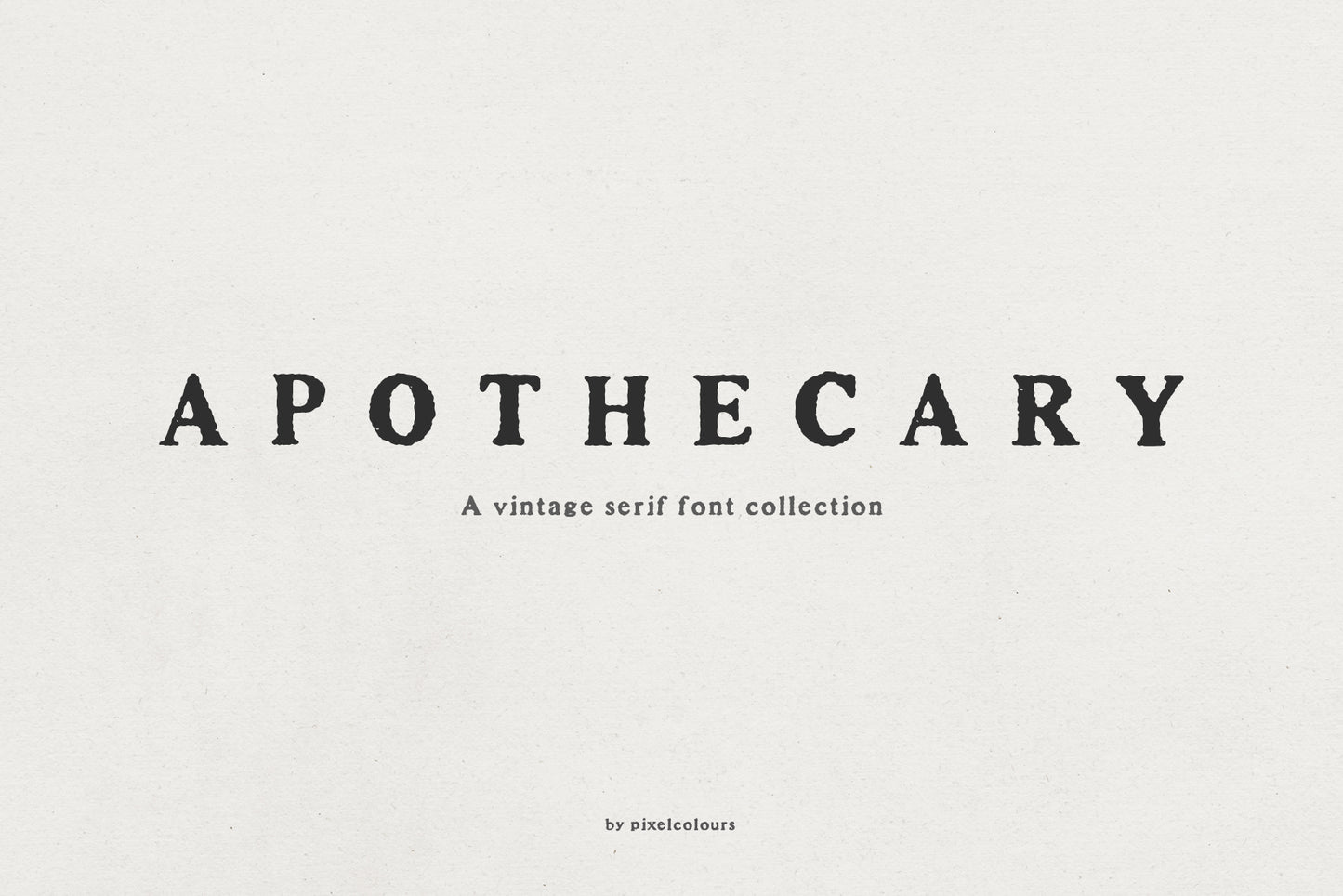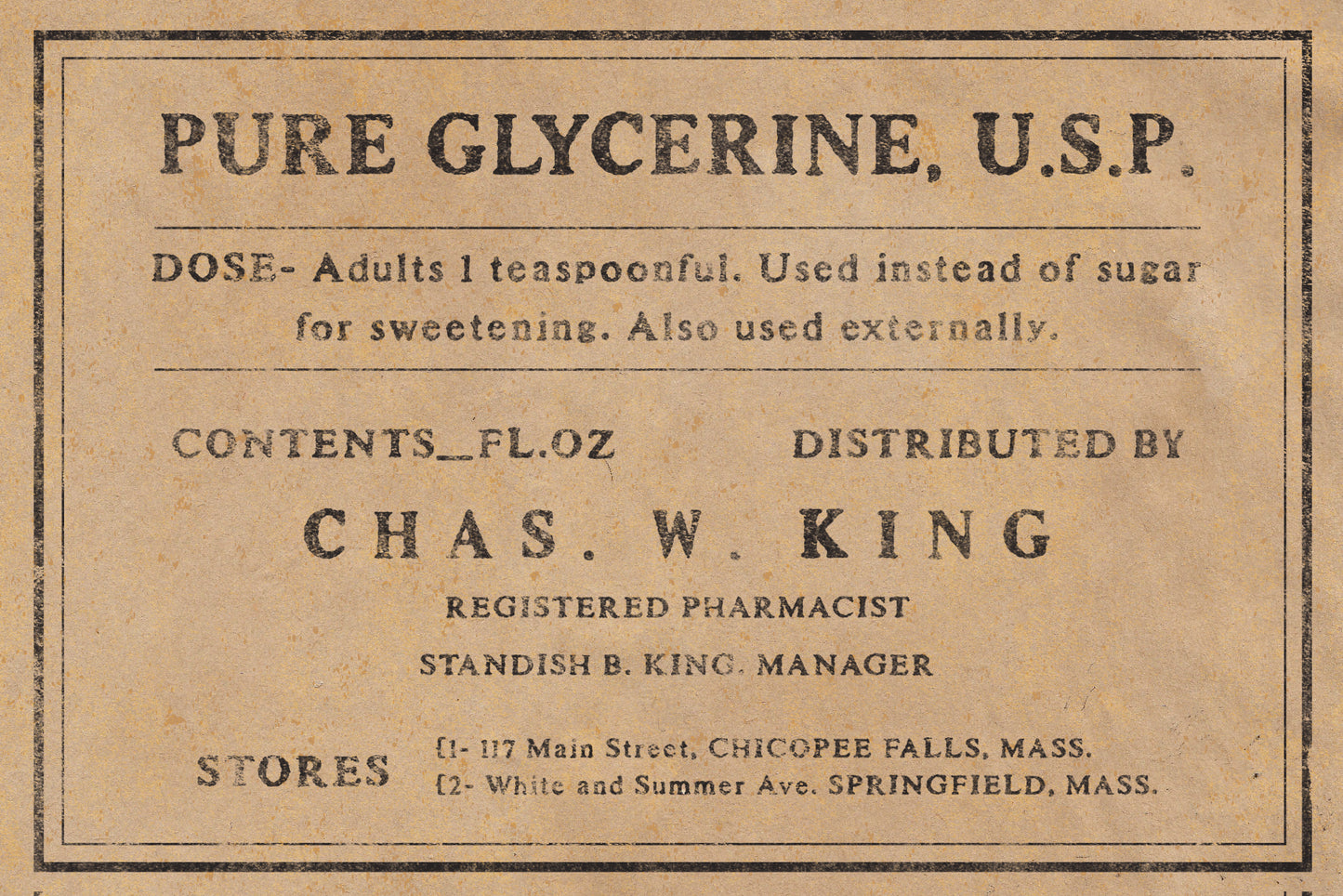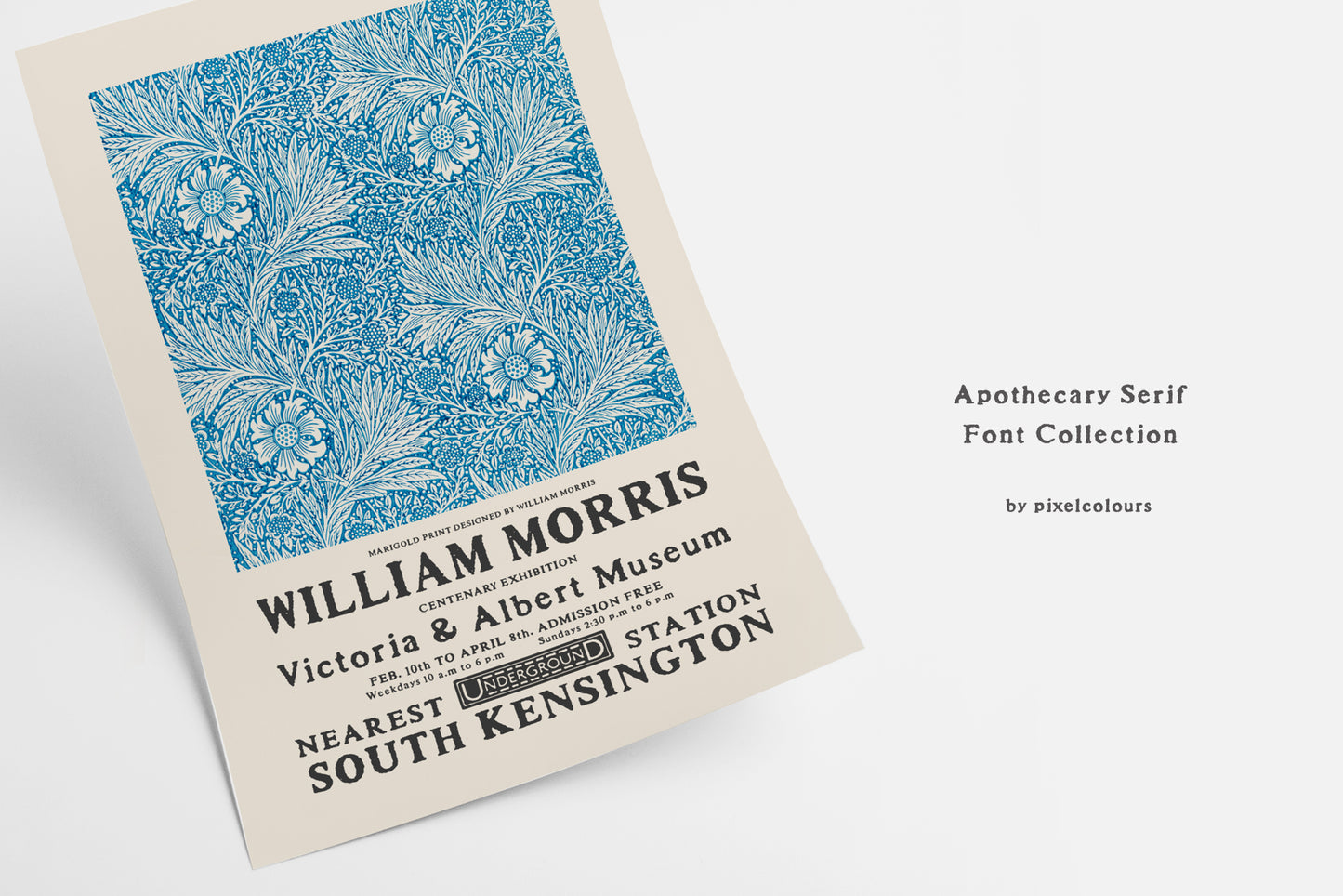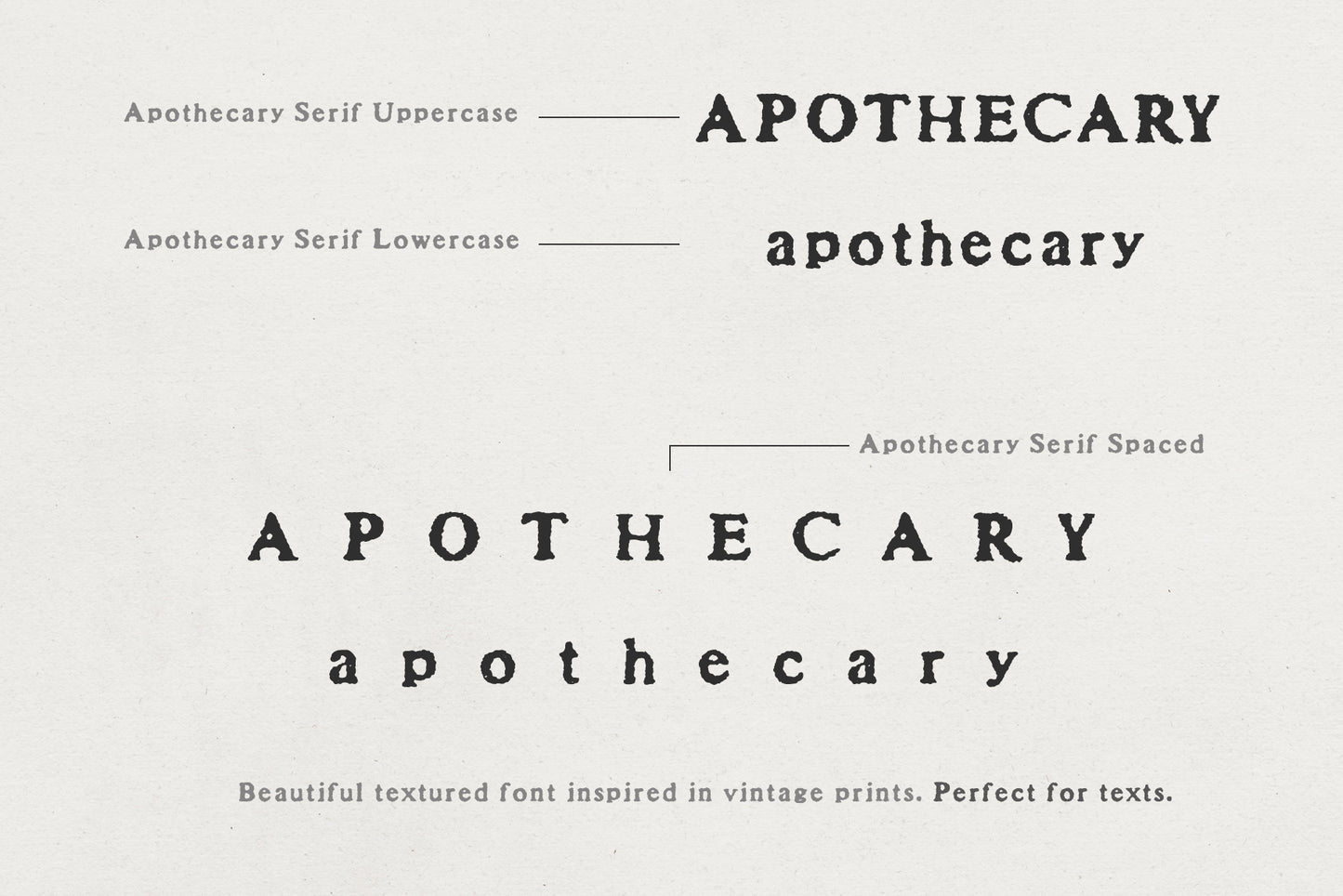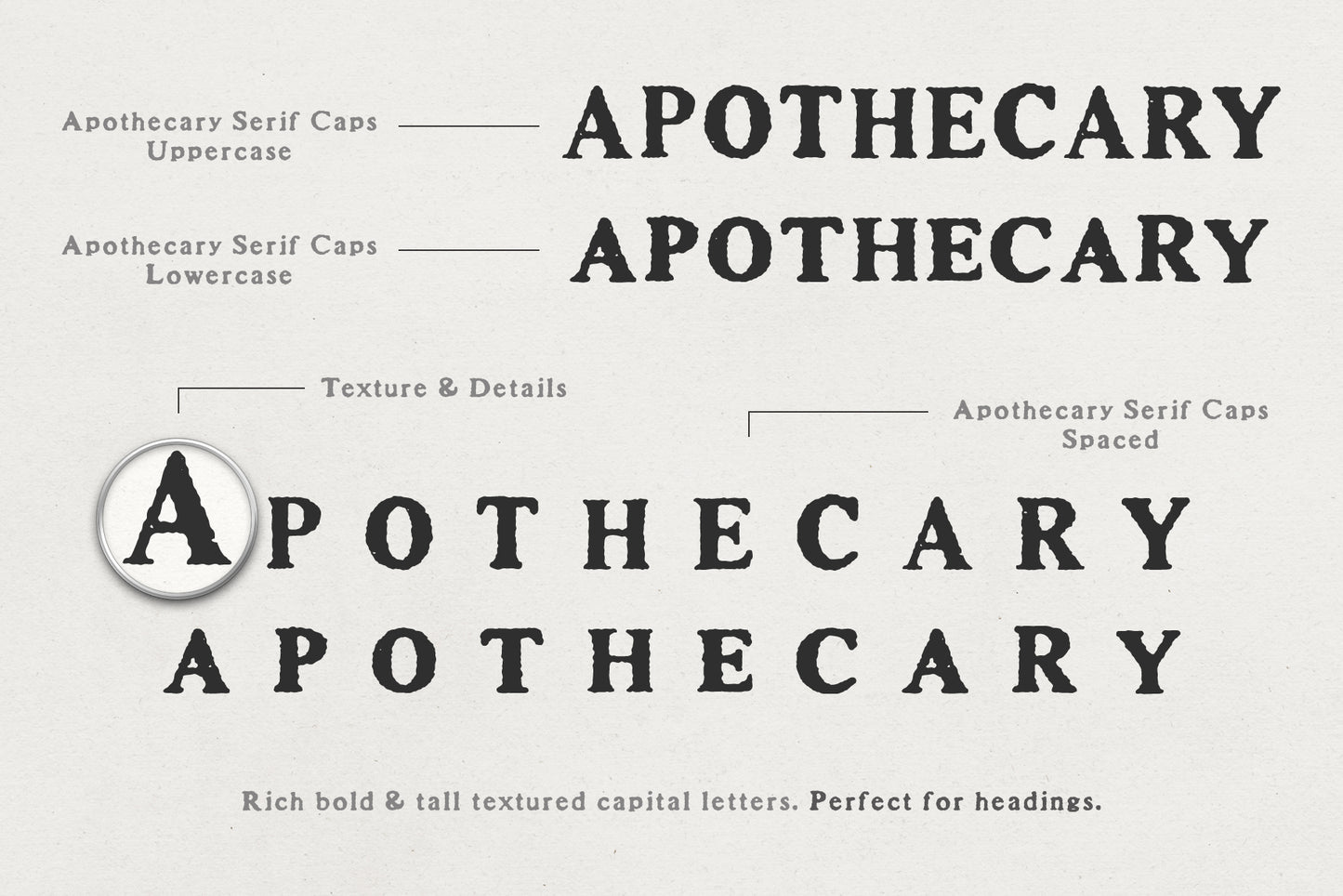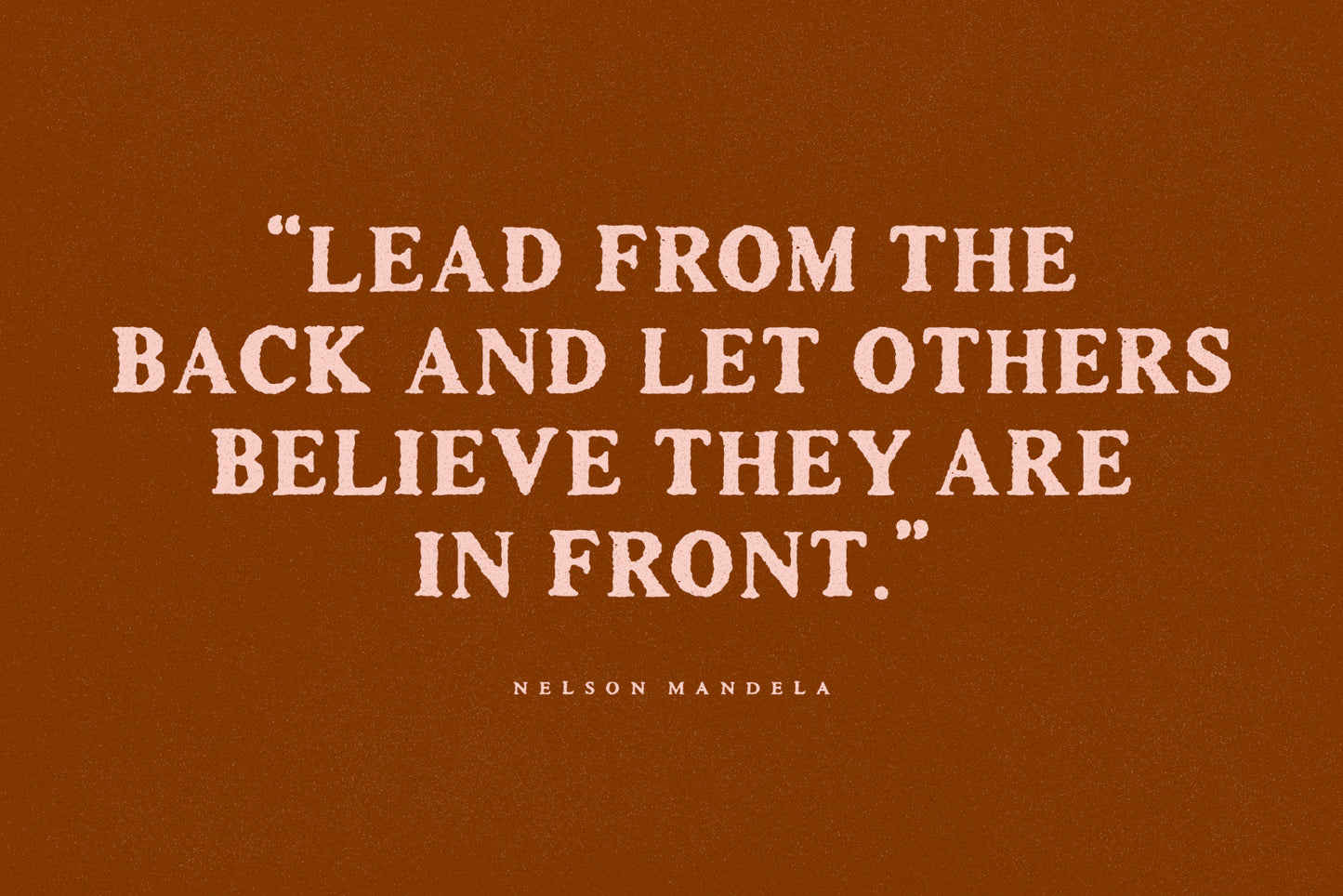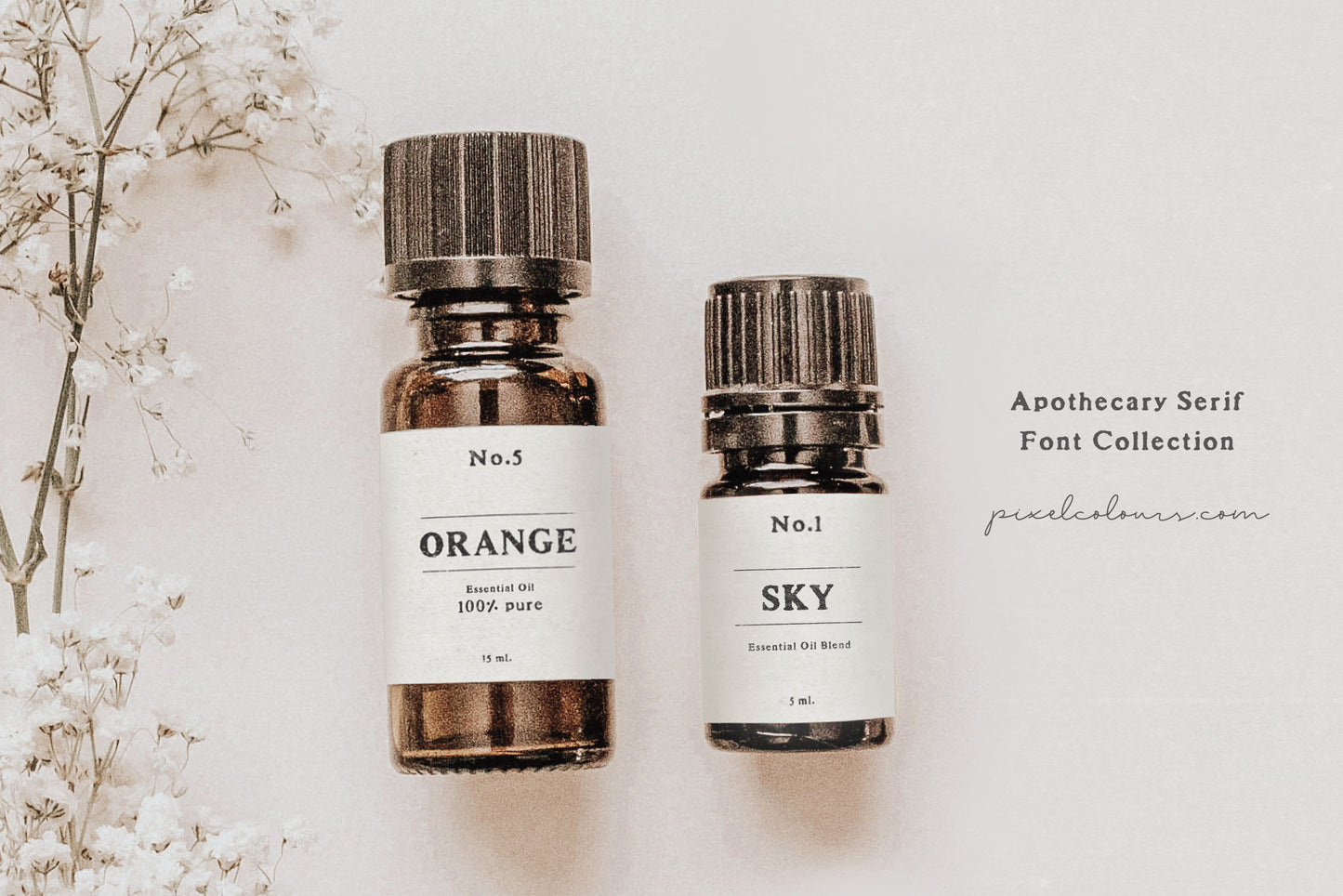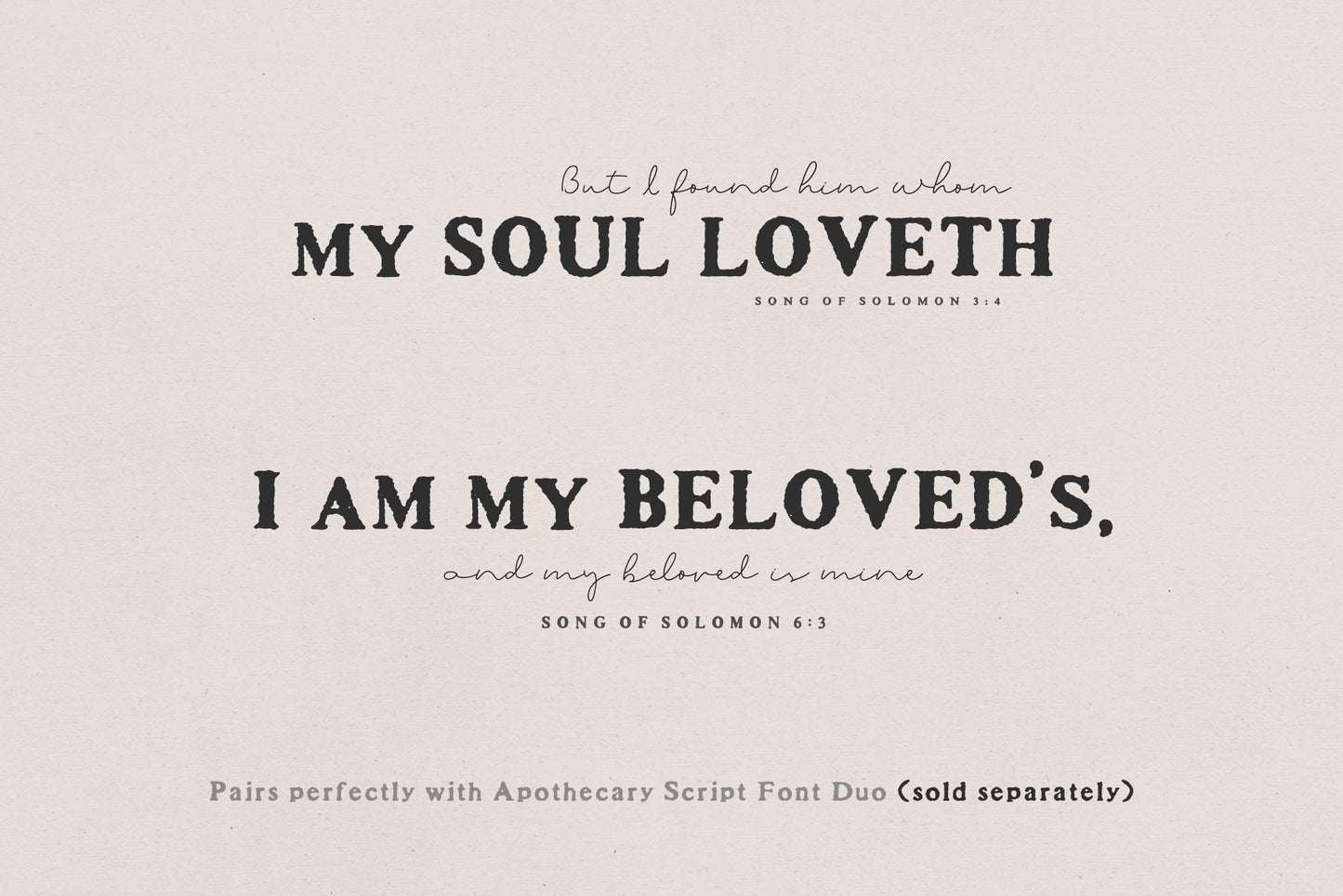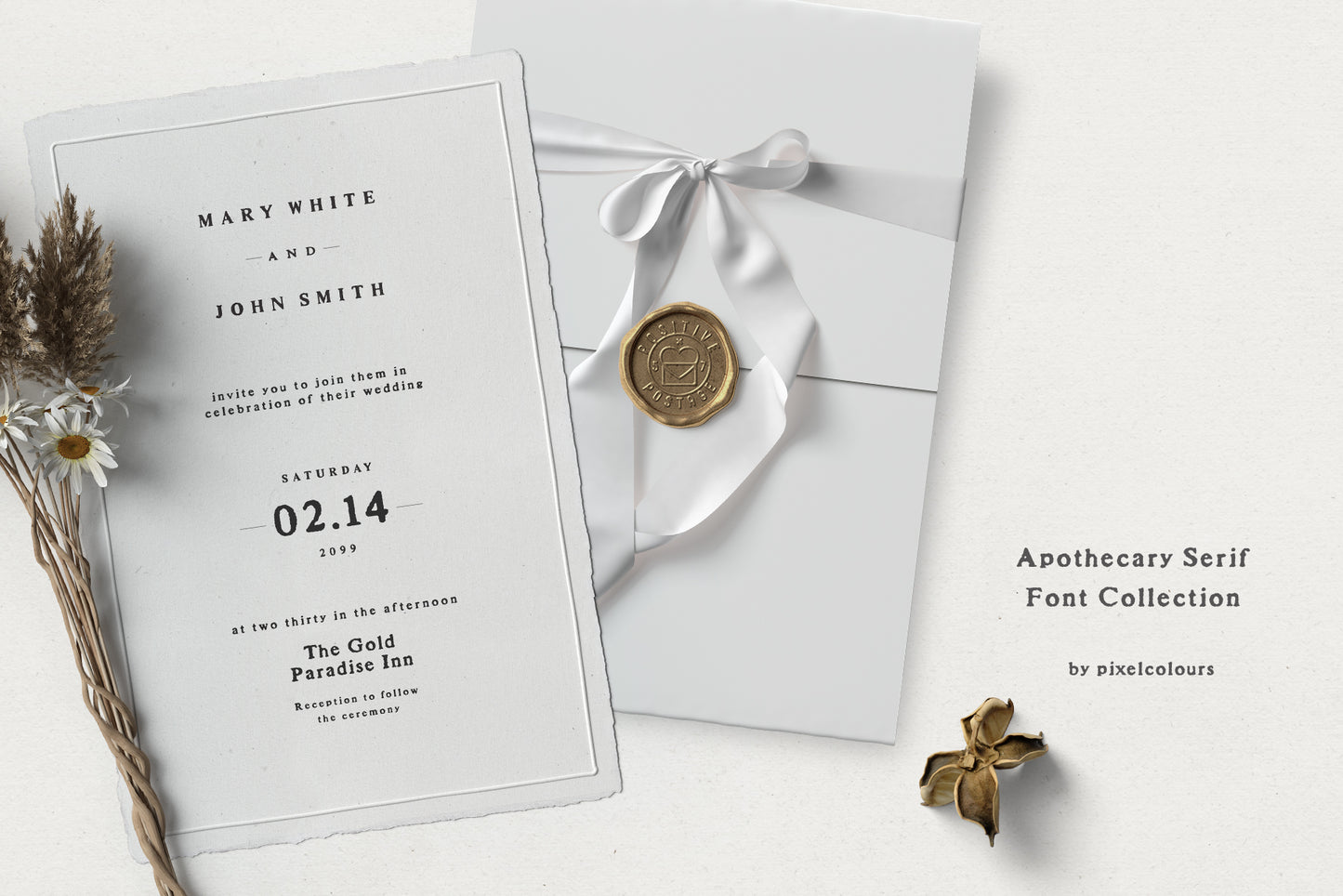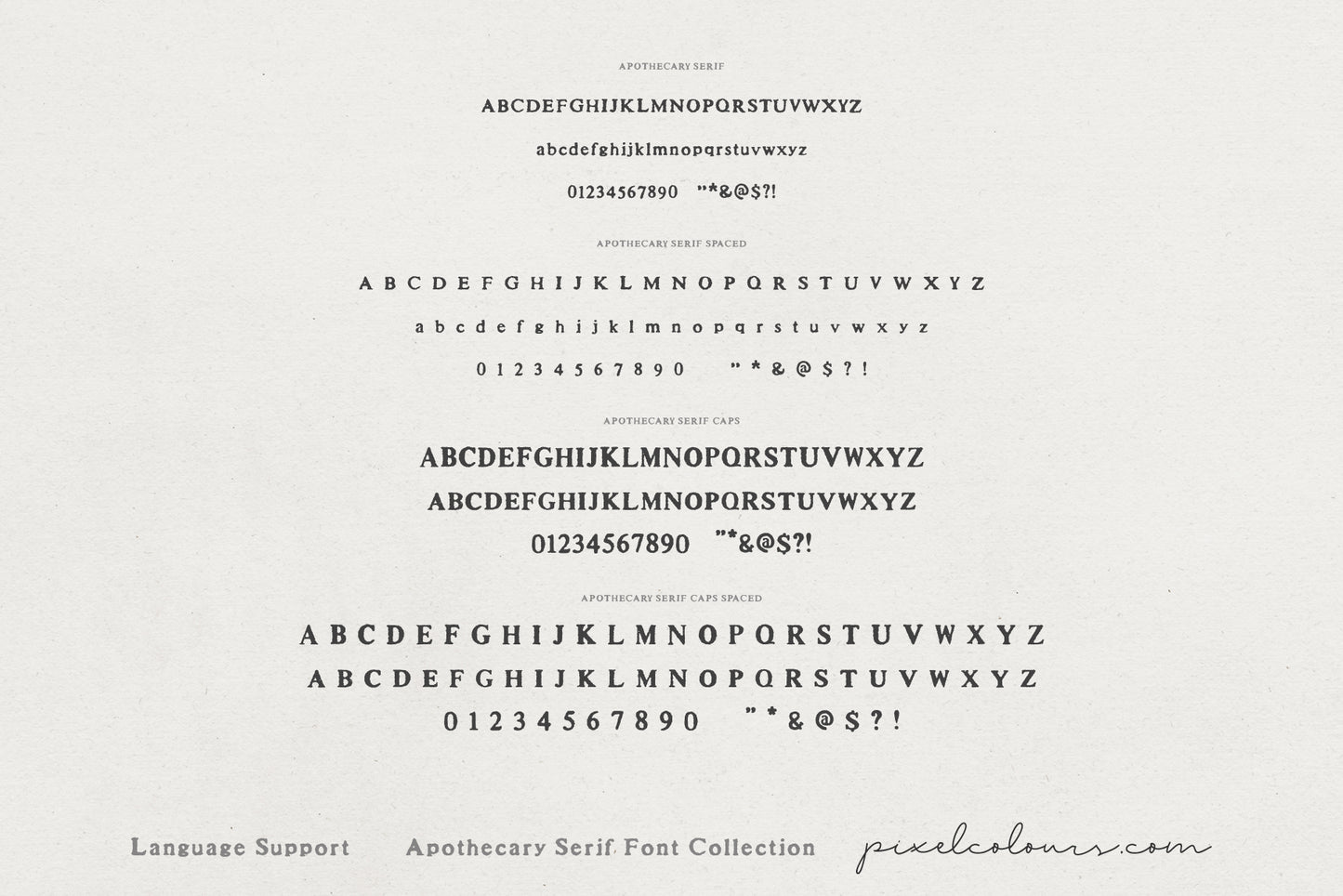
Apothecary Serif Font Collection
Apothecary Serif is a vintage font collection inspired by the timeless elegance of antique prints and classic typography. Great for texts or headings and perfect as a pairing font. Design quotes, packaging, wedding invites or labels and branding with a vintage style. Lovingly designed to match my original Apothecary Script
- Apothecary Serif: a serif font with an antique print texture.
- Apothecary Serif Spaced: beautifully spaced for texts or as a pairing font.
- Apothecary Serif Caps: rich bold and tall textured capitals font that includes the lowercases as a secondary uppercase font, slightly smaller. Great for headings or as drop caps.
- Apothecary Serif Caps Spaced: beautifully spaced for texts or as pairing font.